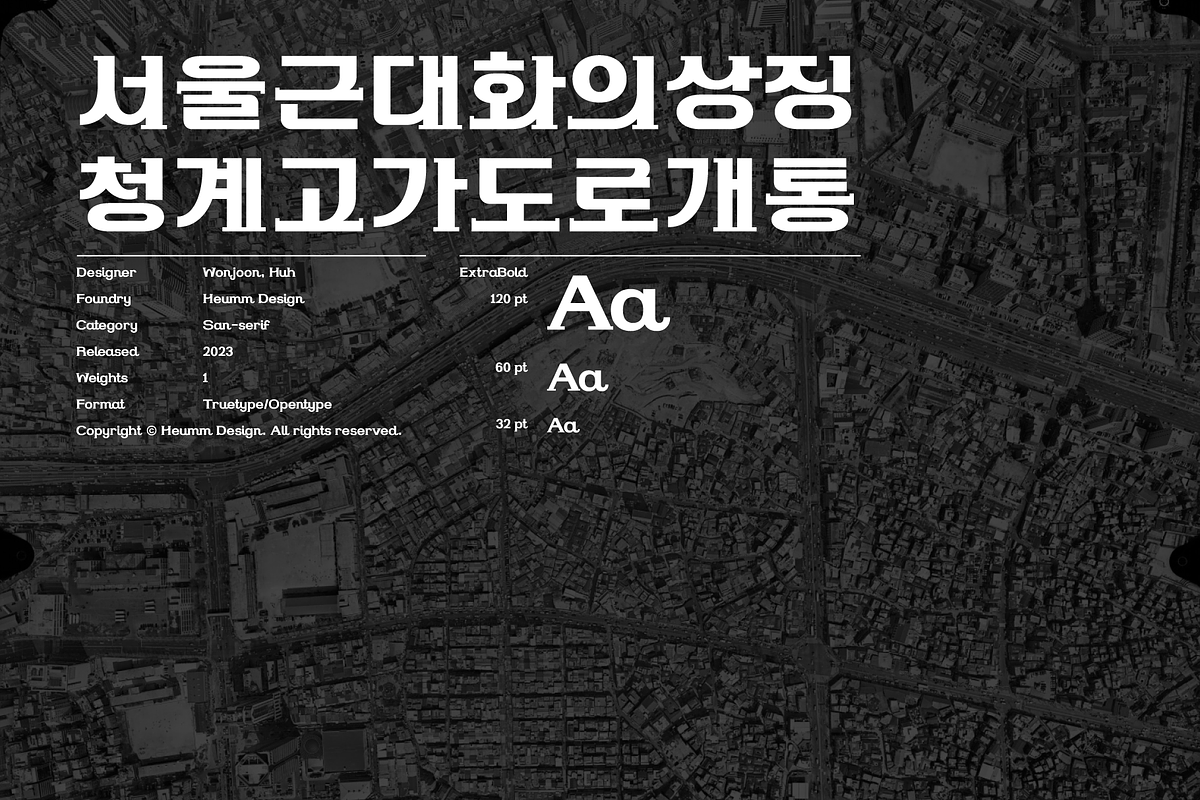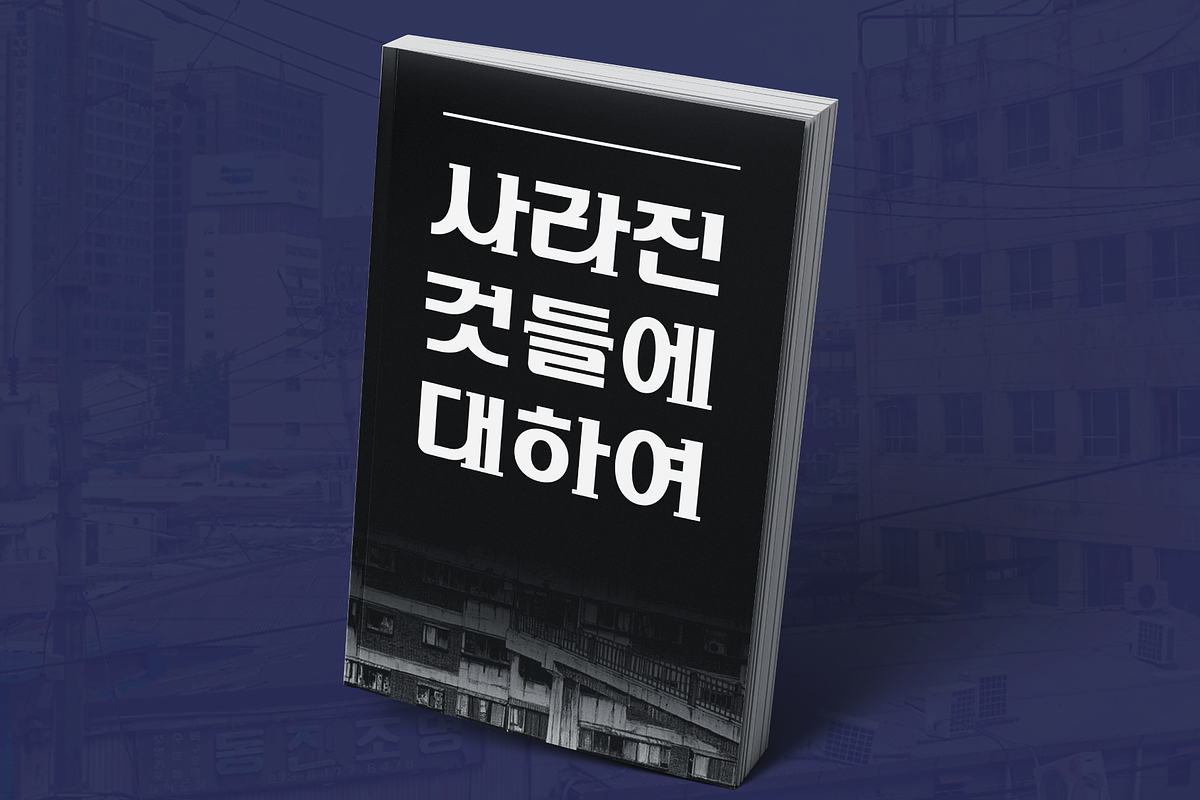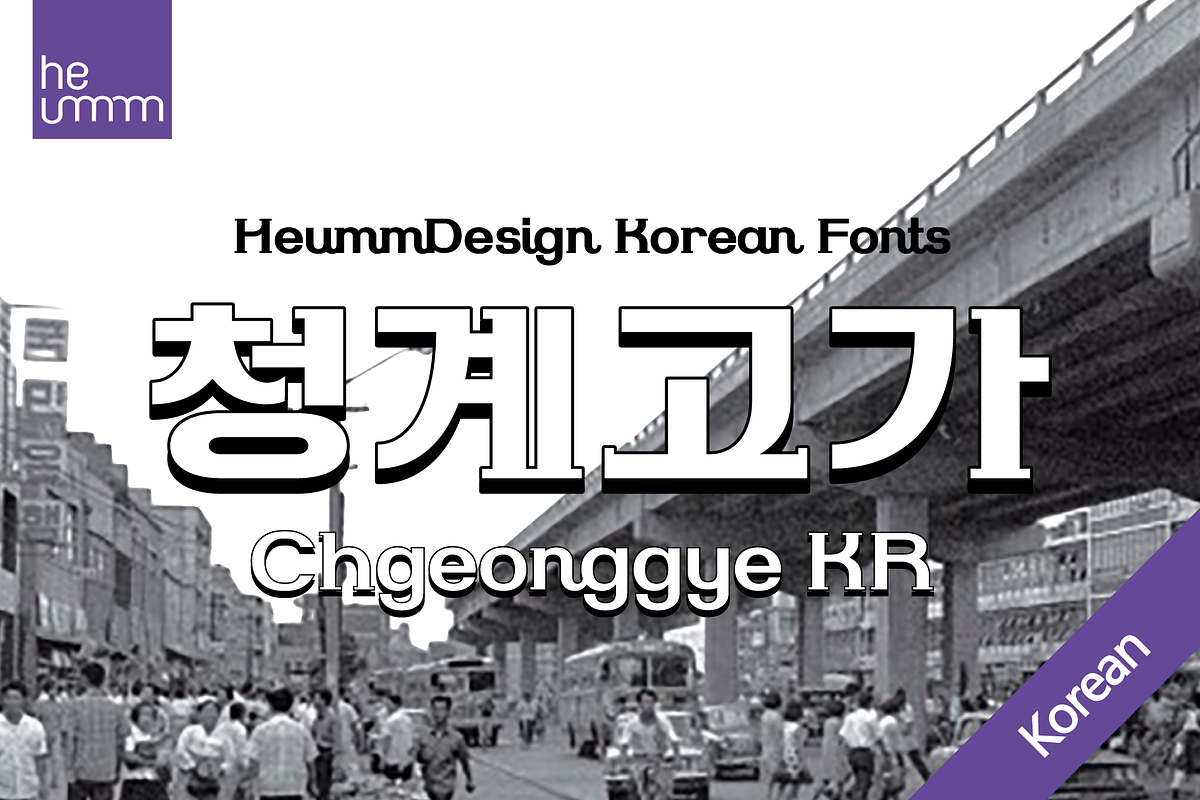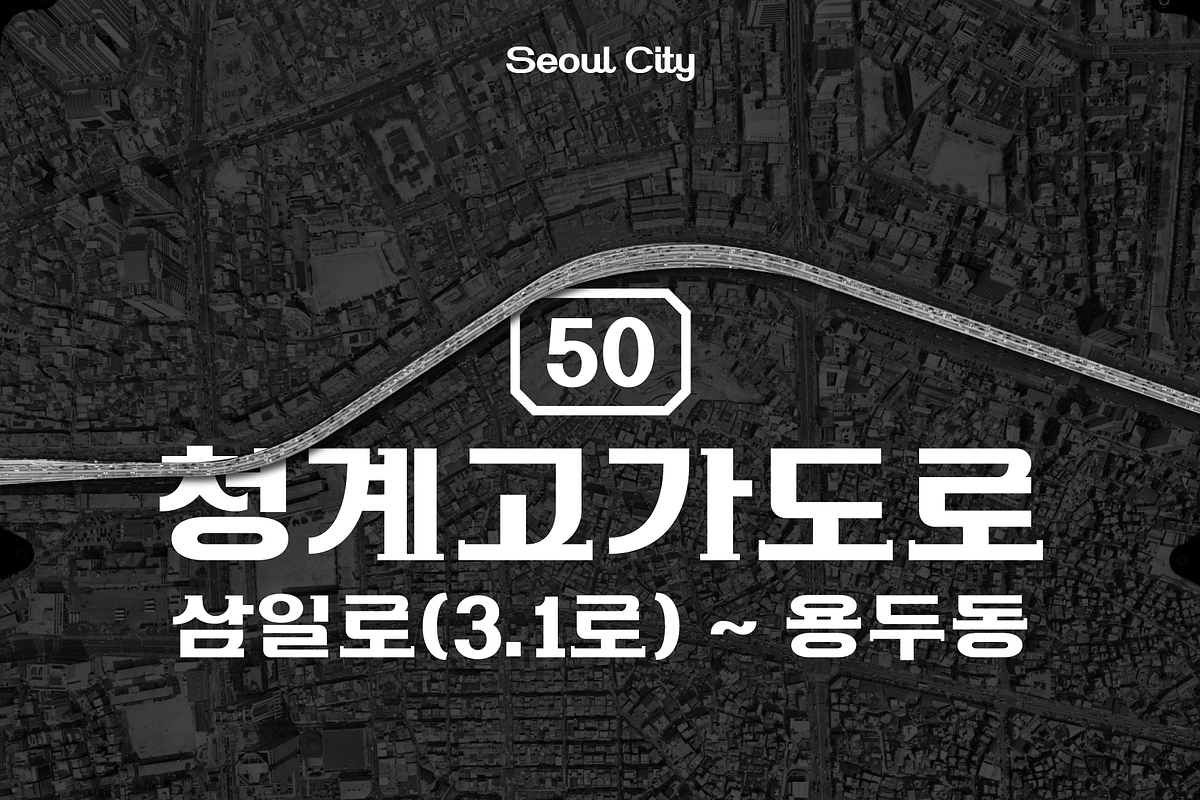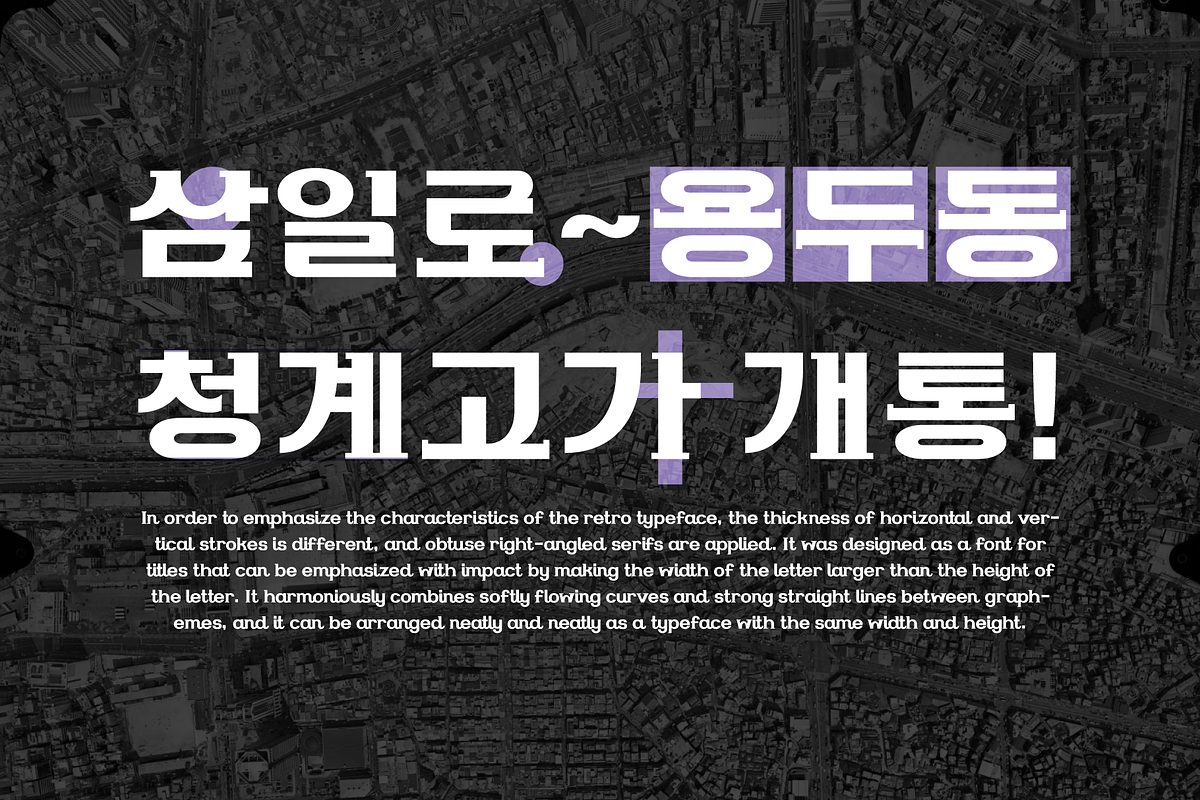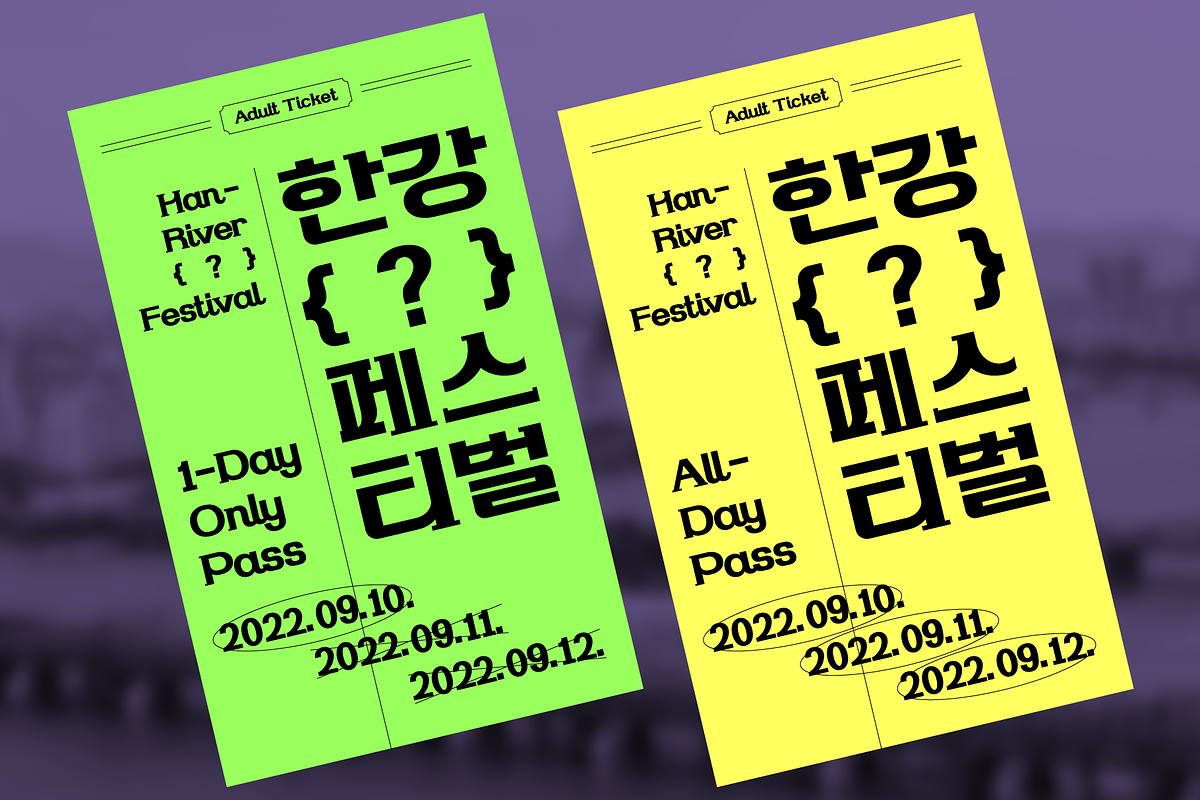
HU Cheonggye KR is a typeface for titles with thick strokes and wide flats, mainly produced with a retro feel. In order to bring out the characteristics of the retro typeface, a difference in thickness between horizontal and vertical strokes was applied, and obtuse right-angled serifs were applied. This font contains Korean characters.
There is 1 weight of HU Cheonggye KR : ExtraBold